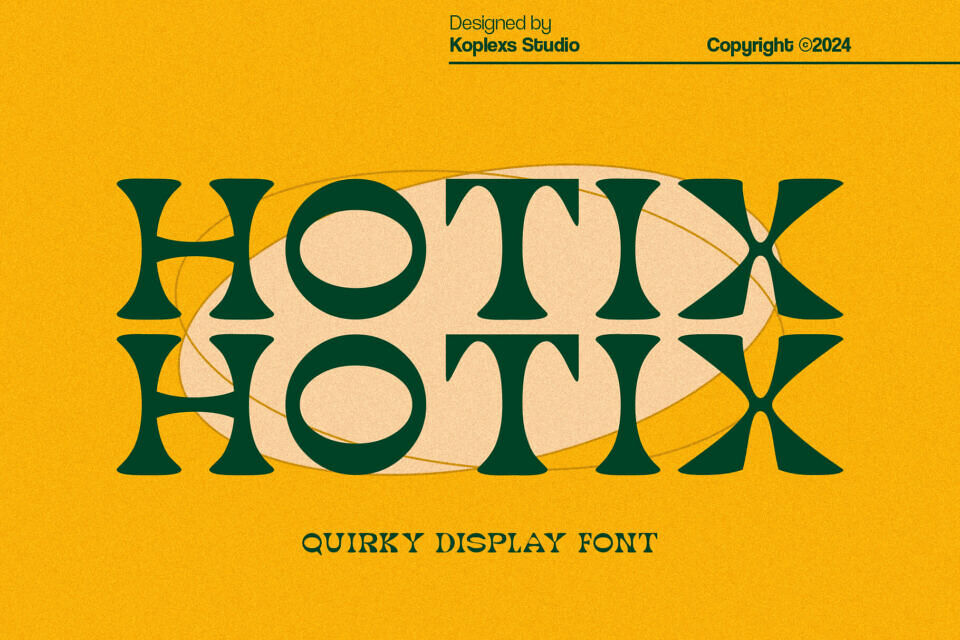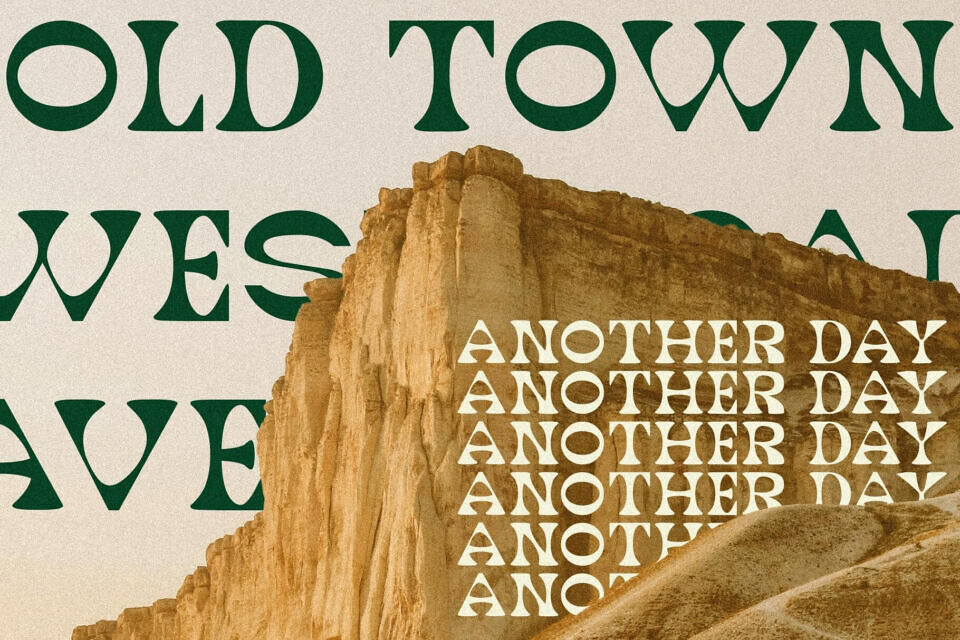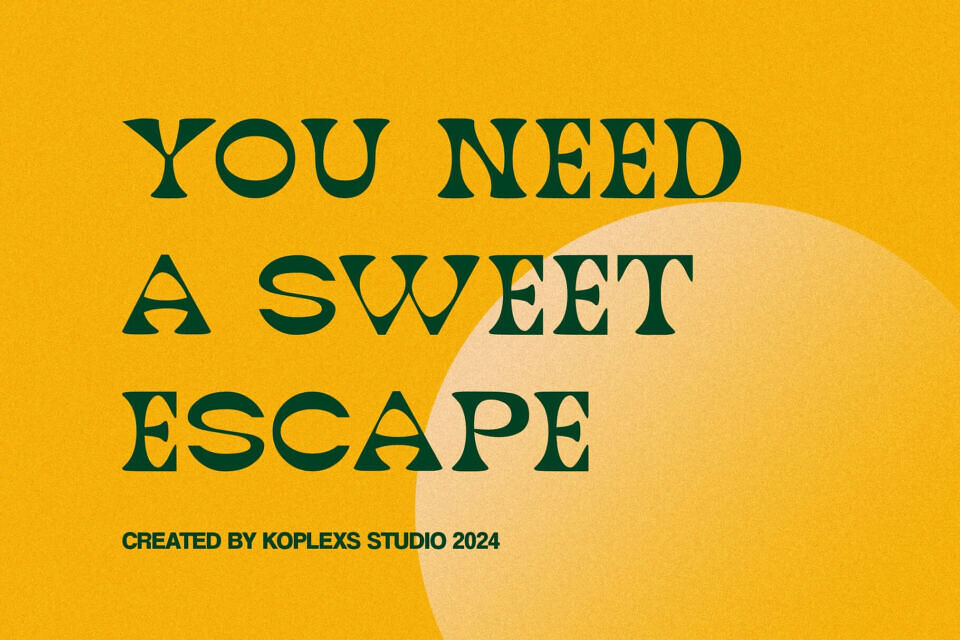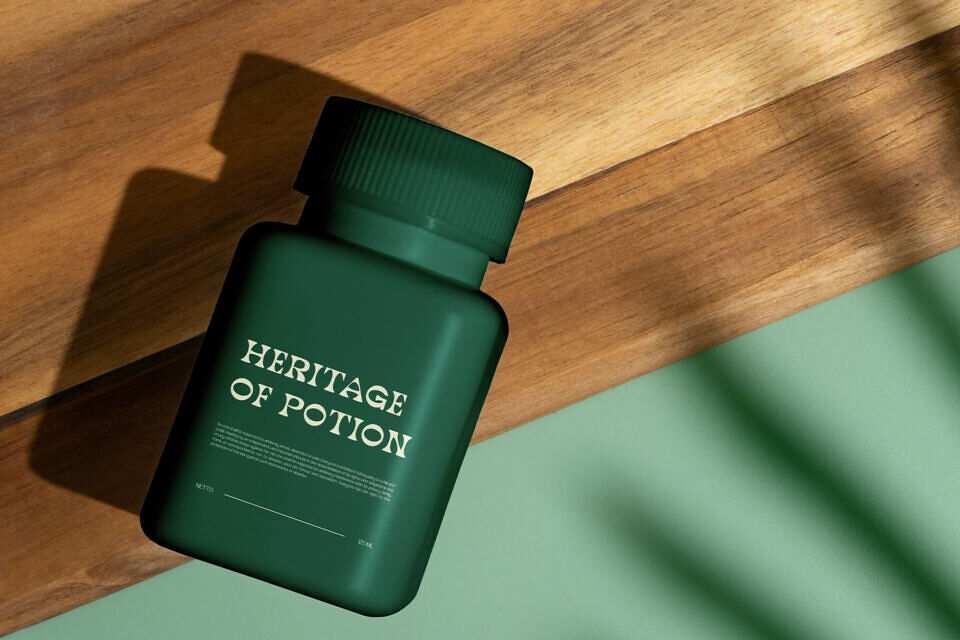
Hotix Font
Hotix Font is a bold, quirky display font typeface designed to bring character and originality to your creative projects. With its retro-inspired curves, high-contrast strokes, and distinctive letterforms, Hotix Font stands out in both digital and print media. Created by Koplexs Studio, this font blends vintage aesthetics with a modern twist, making it perfect for designers who want to capture attention instantly.
Whether you’re working on branding, posters, packaging, or apparel, Hotix Font delivers a fun and stylish vibe. Its playful yet elegant style adapts seamlessly to various design needs.